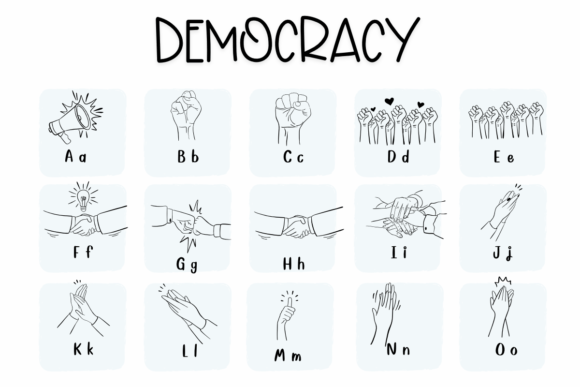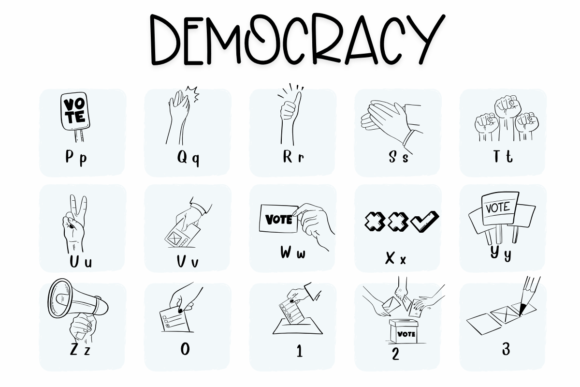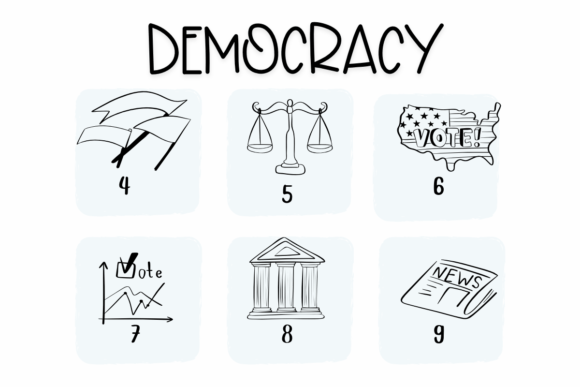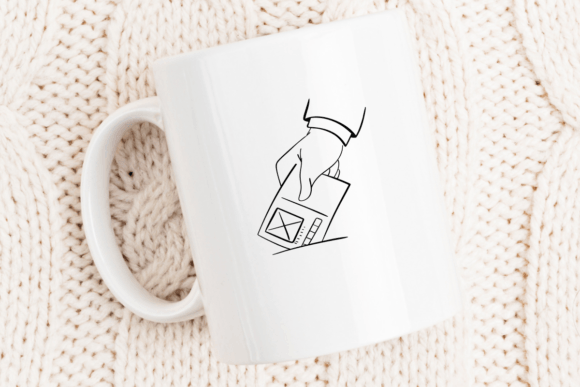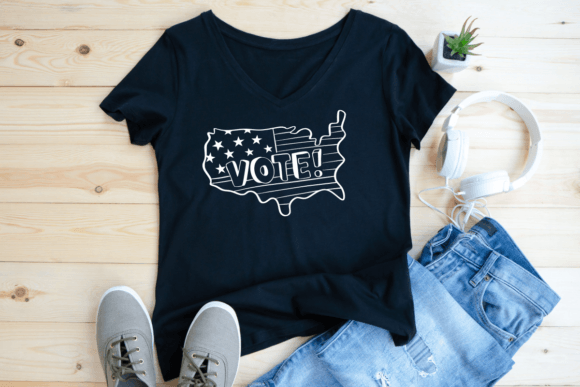
Introducing Democracy Font: Add a Patriotic Touch to Your Creative Projects
Are you looking for a unique and creative way to add a patriotic touch to your projects? Look no further than the Democracy font, a dingbats font with a patriotic theme that’s perfect for enhancing your creative endeavors. In this article, we’ll explore the features and benefits of the Democracy font, and show you how it can be used to take your wedding invitations, DIY projects, crafts, decorations, logos, and other creative ideas to the next level.
What is Democracy Font?
Democracy font is a dingbats font that features a range of patriotic-themed characters, including stars, stripes, and other symbols of American patriotism. The font is designed to be versatile and easy to use, making it perfect for a wide range of creative projects. Whether you’re a designer, crafter, or DIY enthusiast, the Democracy font is a great way to add a touch of patriotism to your work.
Features of Democracy Font
The Democracy font has a number of features that make it an attractive choice for designers and crafters. Some of the key features include:
- Patriotic theme: The font features a range of patriotic-themed characters, including stars, stripes, and other symbols of American patriotism.
- Dingbats design: The font is designed as a dingbats font, which means that it features a range of graphical characters rather than traditional letters and numbers.
- Versatile: The font can be used for a wide range of creative projects, from wedding invitations to DIY crafts and decorations.
Using Democracy Font in Your Creative Projects
The Democracy font can be used in a wide range of creative projects, including:
- Wedding invitations: Add a patriotic touch to your wedding invitations with the Democracy font. Use it to create custom graphics, borders, and other design elements.
- DIY projects: The Democracy font is perfect for DIY projects, such as scrapbooking, card making, and other paper crafts.
- Crafts: Use the Democracy font to create custom graphics and designs for your crafts, such as knitting patterns, sewing projects, and other handmade items.
- Decorations: Add a patriotic touch to your decorations with the Democracy font. Use it to create custom signs, banners, and other decorative elements.
- Logos: The Democracy font can be used to create custom logos for businesses, organizations, and other groups.
Tips for Using Democracy Font
Here are a few tips for using the Democracy font in your creative projects:
- Experiment with different sizes and colors: The Democracy font can be used in a range of sizes and colors, so don’t be afraid to experiment and find the look that works best for your project.
- Combine with other fonts: The Democracy font can be combined with other fonts to create a unique and interesting design.
- Use it sparingly: The Democracy font is a bold and eye-catching font, so use it sparingly to avoid overwhelming your design.
The Democracy font is a versatile and easy-to-use font that’s perfect for adding a patriotic touch to your creative projects. With its range of patriotic-themed characters and dingbats design, it’s a great choice for designers, crafters, and DIY enthusiasts. Whether you’re creating wedding invitations, DIY crafts, decorations, logos, or other creative projects, the Democracy font is a great way to add a touch of patriotism and style.